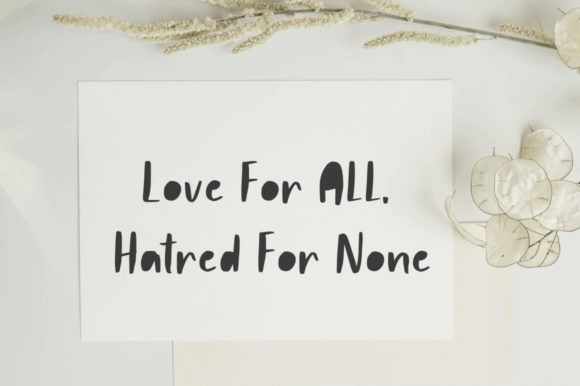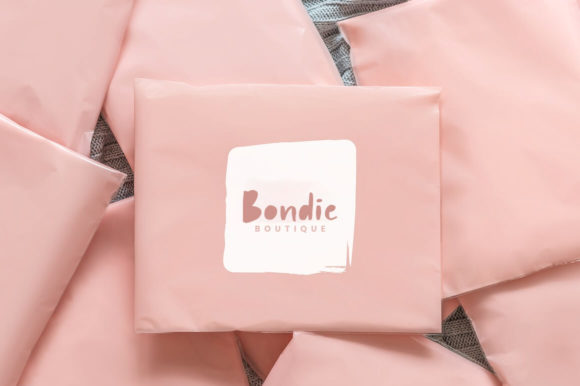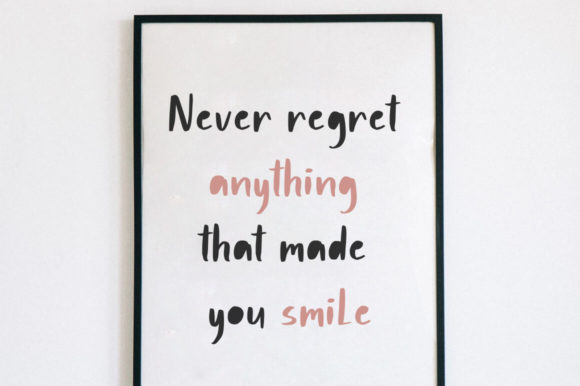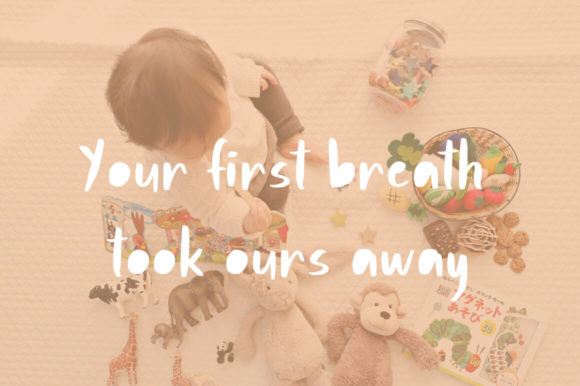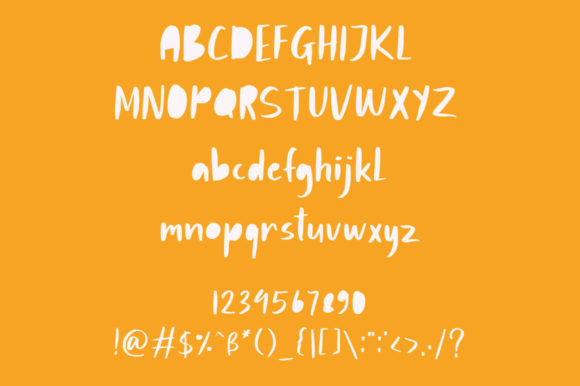
Bondie Font: Elevate Your Designs with a Simple, Casual, and Playful Handwritten Style
Are you tired of using the same old fonts in your designs? Look no further than Bondie Font, a simple and casual yet playful handwritten font that’s sure to make your creative ideas stand out. In this article, we’ll dive into the world of Bondie Font, exploring its features, benefits, and uses, as well as provide tips on how to incorporate it into your designs.
What is Bondie Font?
Bondie Font is a modern, handwritten font that’s perfect for designers and crafters looking for a fresh and playful style. Its simplicity and casual vibe make it an excellent choice for a wide range of projects, from branding and advertising to packaging and digital media.
Features of Bondie Font
So, what makes Bondie Font so special? Here are just a few of its key features:
- Simple and Casual: Bondie Font has a relaxed, effortless feel that’s perfect for creating a friendly and approachable tone.
- Playful: With its slightly irregular lines and whimsical flair, Bondie Font adds a touch of playfulness to any design.
- Handwritten: Bondie Font has a personal, handwritten feel that’s perfect for adding a touch of warmth and personality to your designs.
- Versatile: Whether you’re working on a logo, brochure, or social media graphic, Bondie Font is versatile enough to fit any design need.
Benefits of Using Bondie Font
So, why should you choose Bondie Font for your next design project? Here are just a few benefits:
- Stand out from the crowd: With its unique and playful style, Bondie Font is sure to help your designs stand out from the competition.
- Easy to read: Despite its playful vibe, Bondie Font is surprisingly easy to read, making it perfect for body text and headlines.
- Flexible: Bondie Font can be used in a wide range of design applications, from digital media to print materials.
- Time-saving: With Bondie Font, you can create professional-looking designs in no time, saving you hours of time and effort.
Using Bondie Font in Your Designs
So, how can you incorporate Bondie Font into your designs? Here are a few ideas to get you started:
- Logos and branding: Use Bondie Font to create a unique and memorable logo that reflects your brand’s personality.
- Social media graphics: Add a touch of playfulness to your social media graphics with Bondie Font.
- Packaging: Use Bondie Font to create eye-catching packaging that stands out on store shelves.
- Digital media: Incorporate Bondie Font into your digital media, such as e-books, blogs, and websites.
Tips for Getting the Most Out of Bondie Font
To get the most out of Bondie Font, here are a few tips to keep in mind:
- Experiment with colors: Bondie Font looks great in a wide range of colors, so don’t be afraid to experiment and find the perfect hue for your design.
- Mix and match: Combine Bondie Font with other fonts and design elements to create a unique and eye-catching design.
- Keep it simple: Don’t overcomplicate your design – Bondie Font is perfect for simple, clean designs that get the message across.
In conclusion, Bondie Font is a simple and casual yet playful handwritten font that’s perfect for designers and crafters looking to elevate their designs. With its unique features, benefits, and versatility, Bondie Font is sure to become a go-to font in your design arsenal. So why wait? Give Bondie Font a try today and see how it can take your designs to the next level!